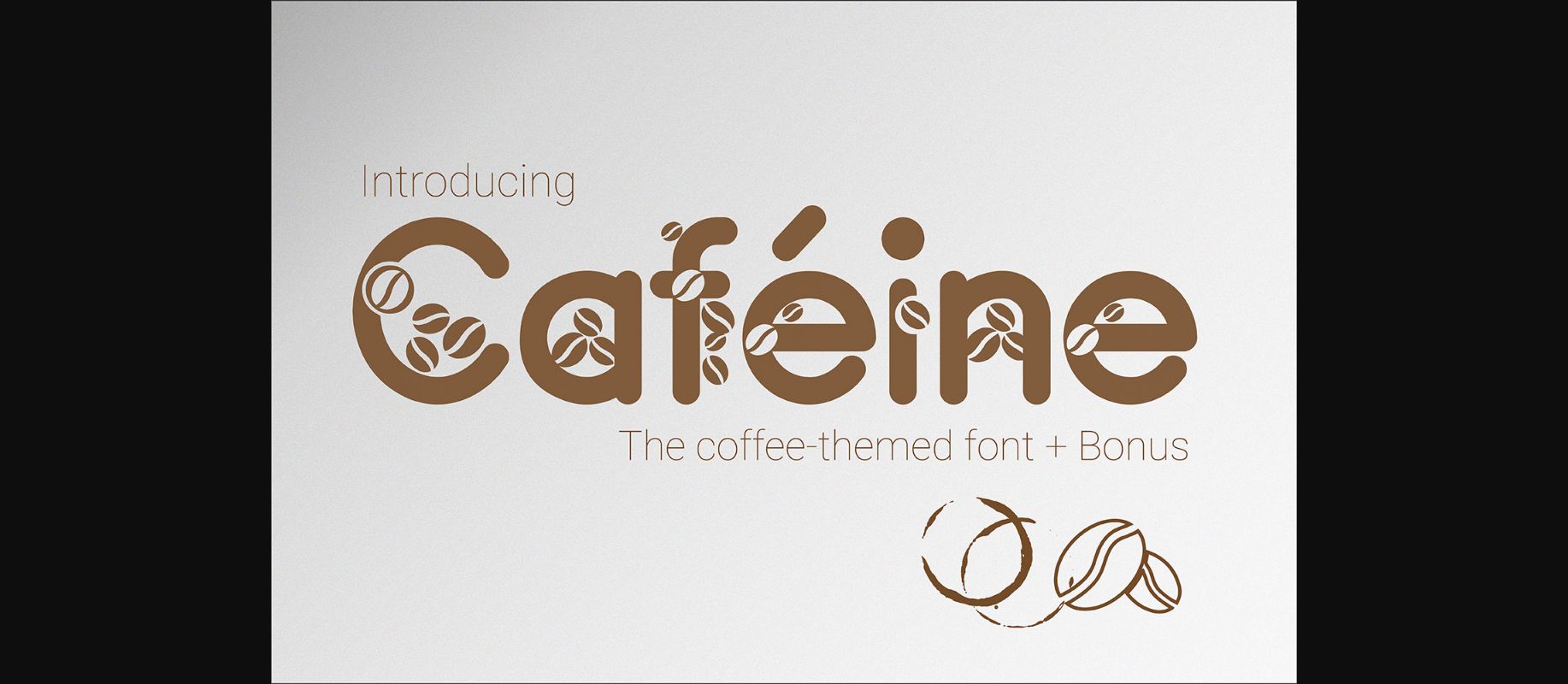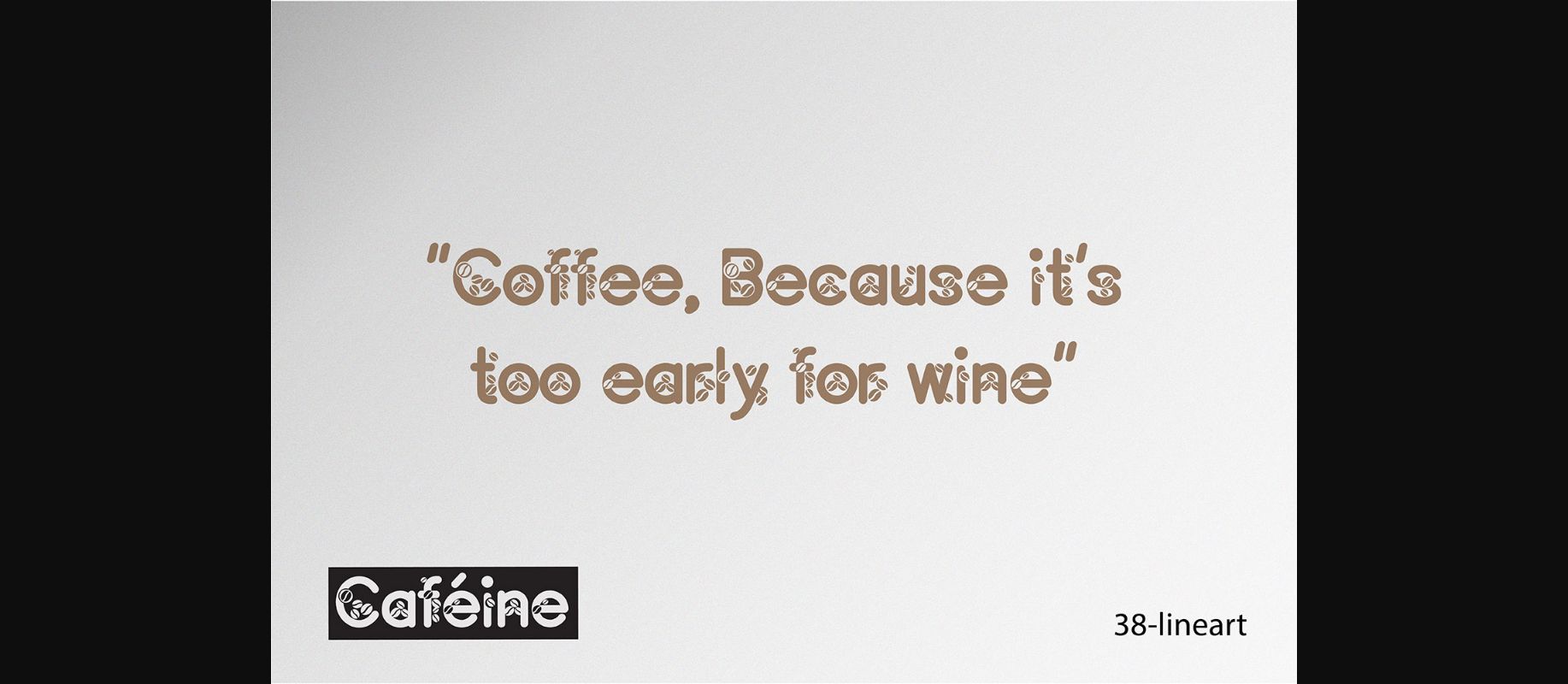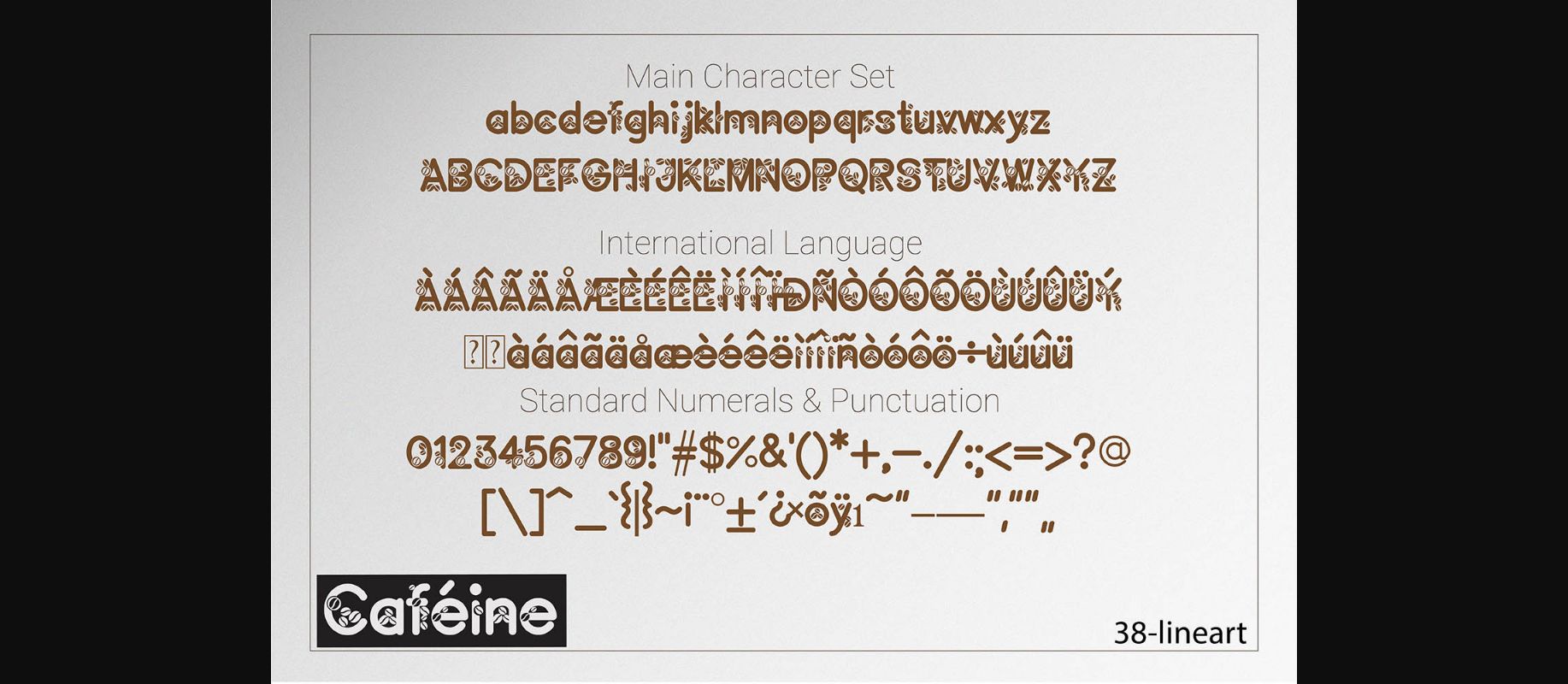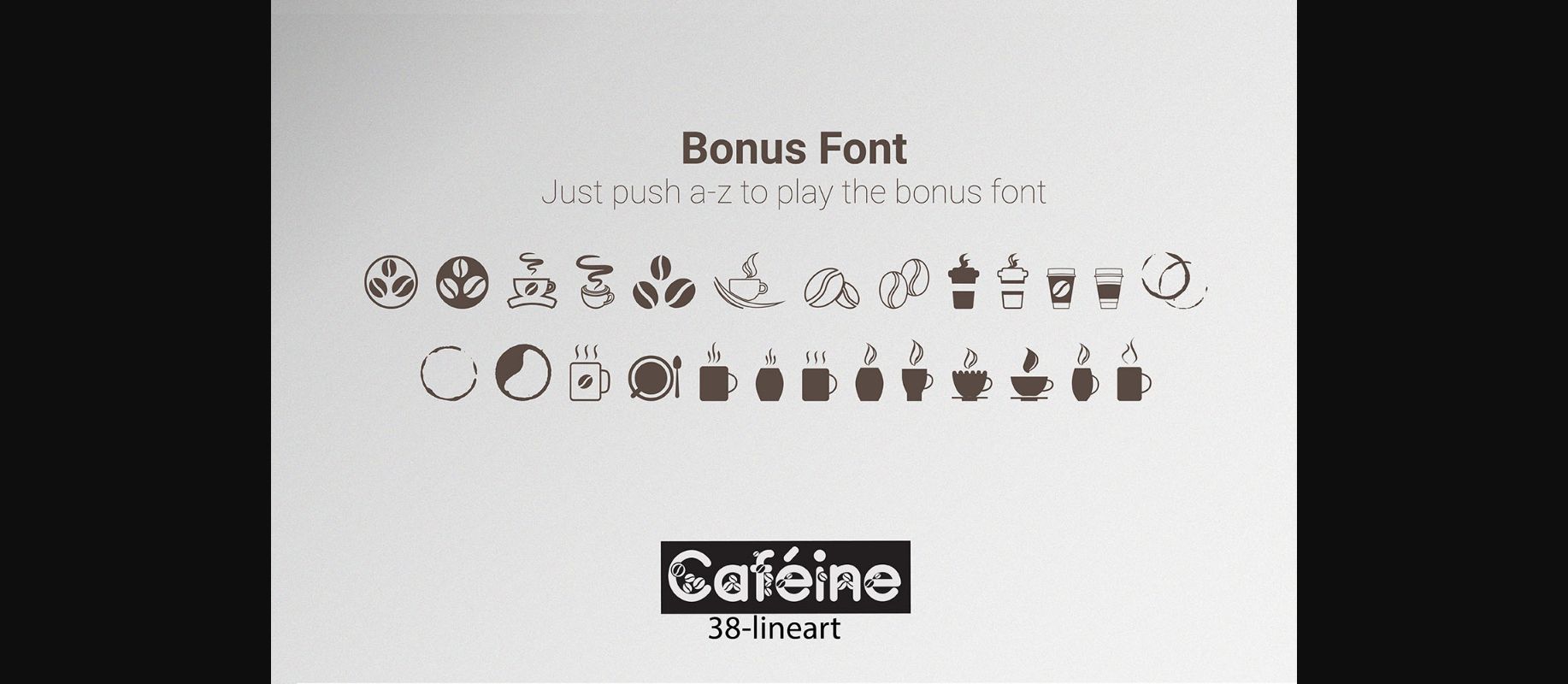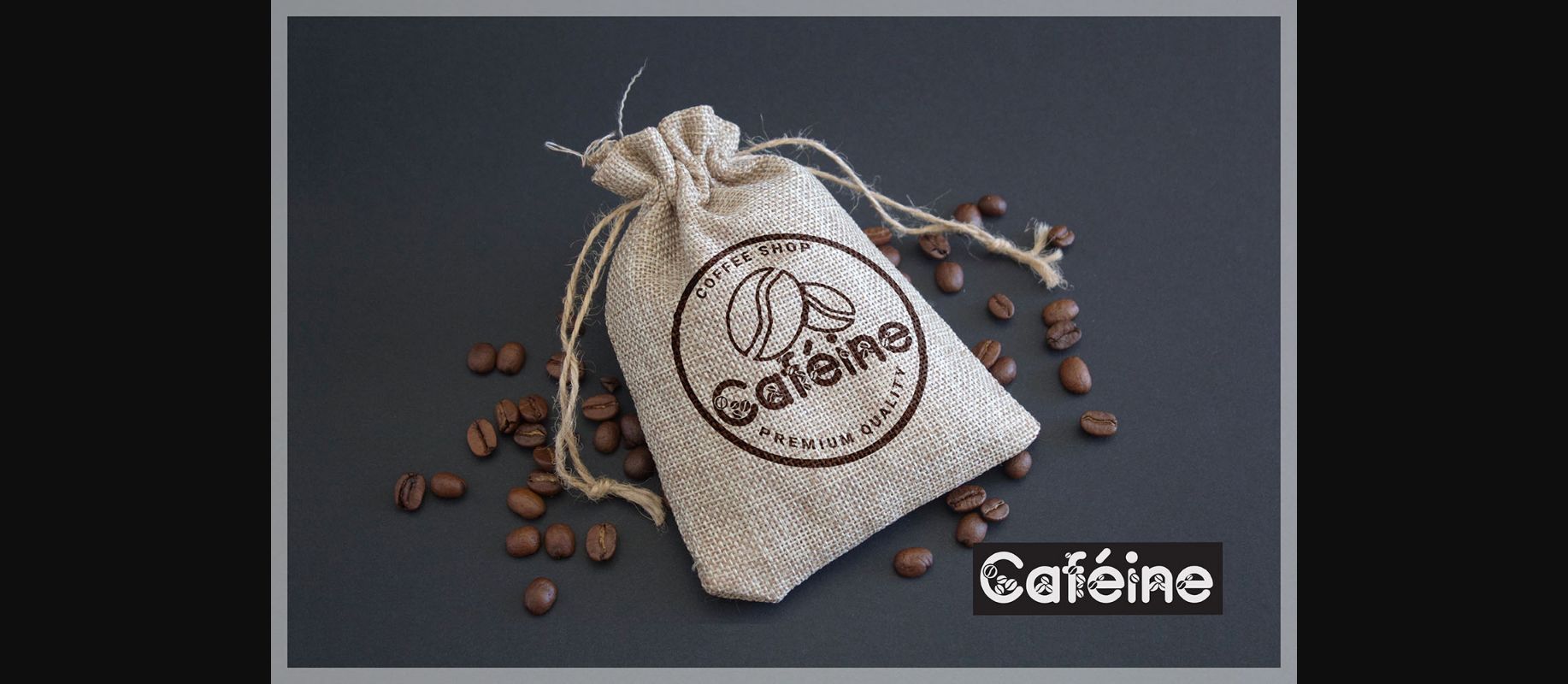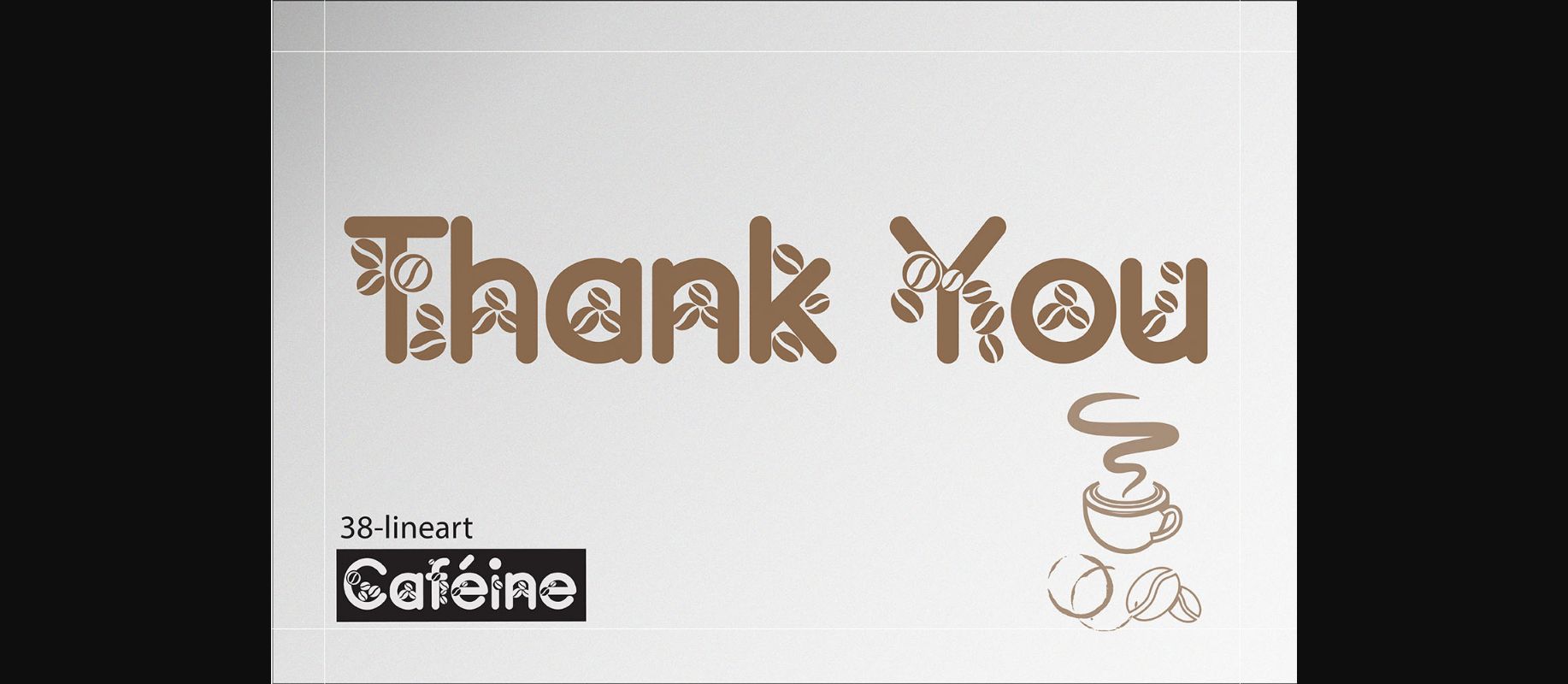
About Caféine Font
Caféine is a beautiful, coffee-themed font that was made with details of coffee beans! This fun, decorative font was crafted for use in the coffee business and community as a means to strengthen themes of coffee with a quirky twist. Comes with extras!